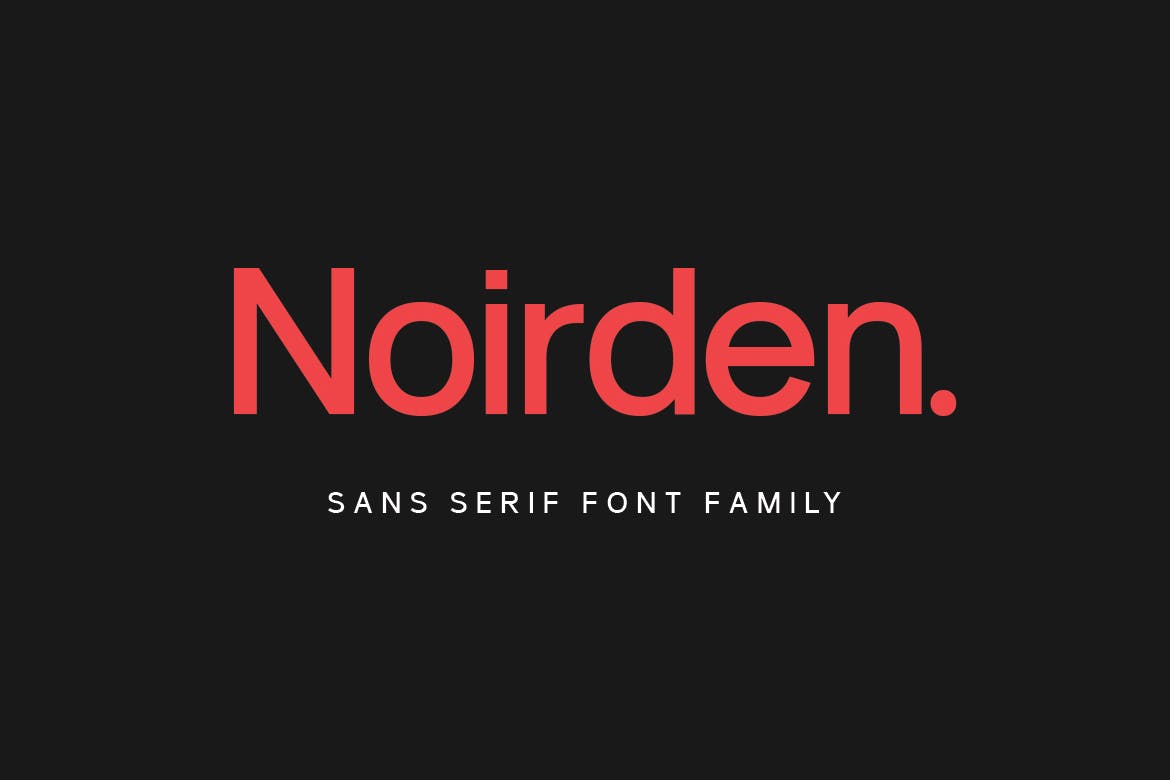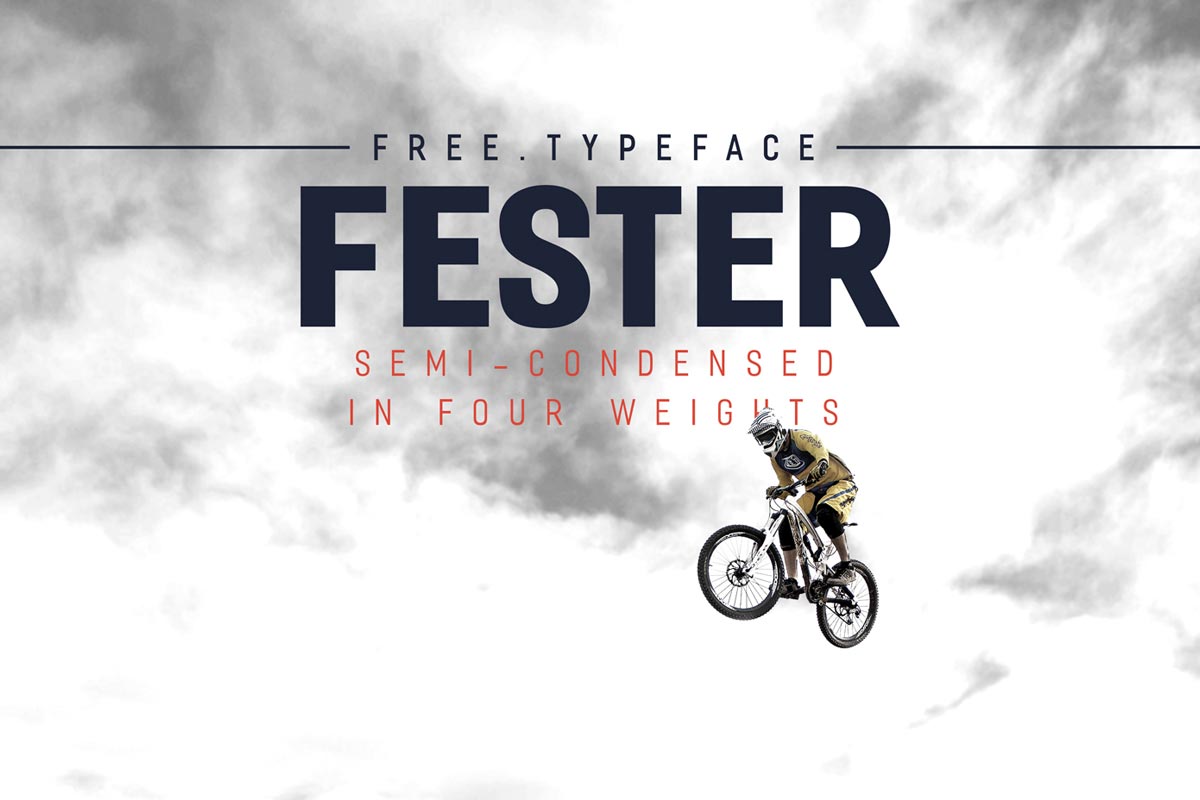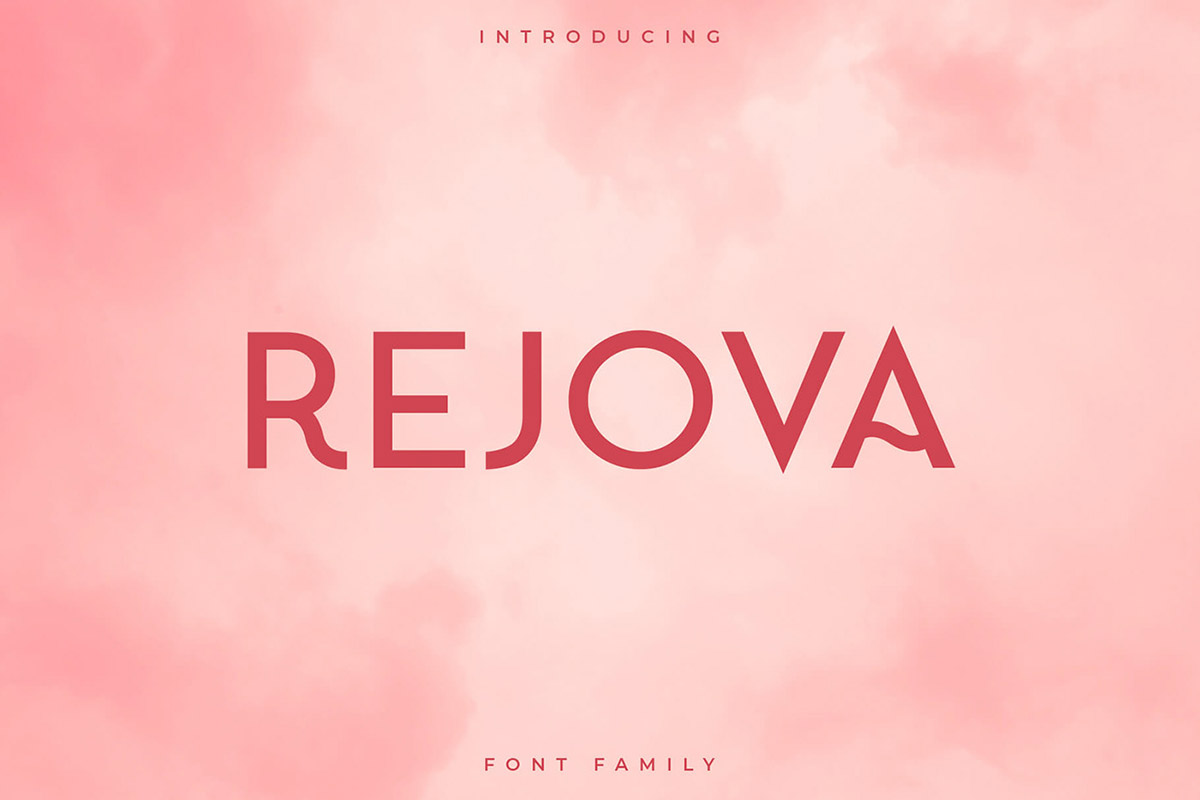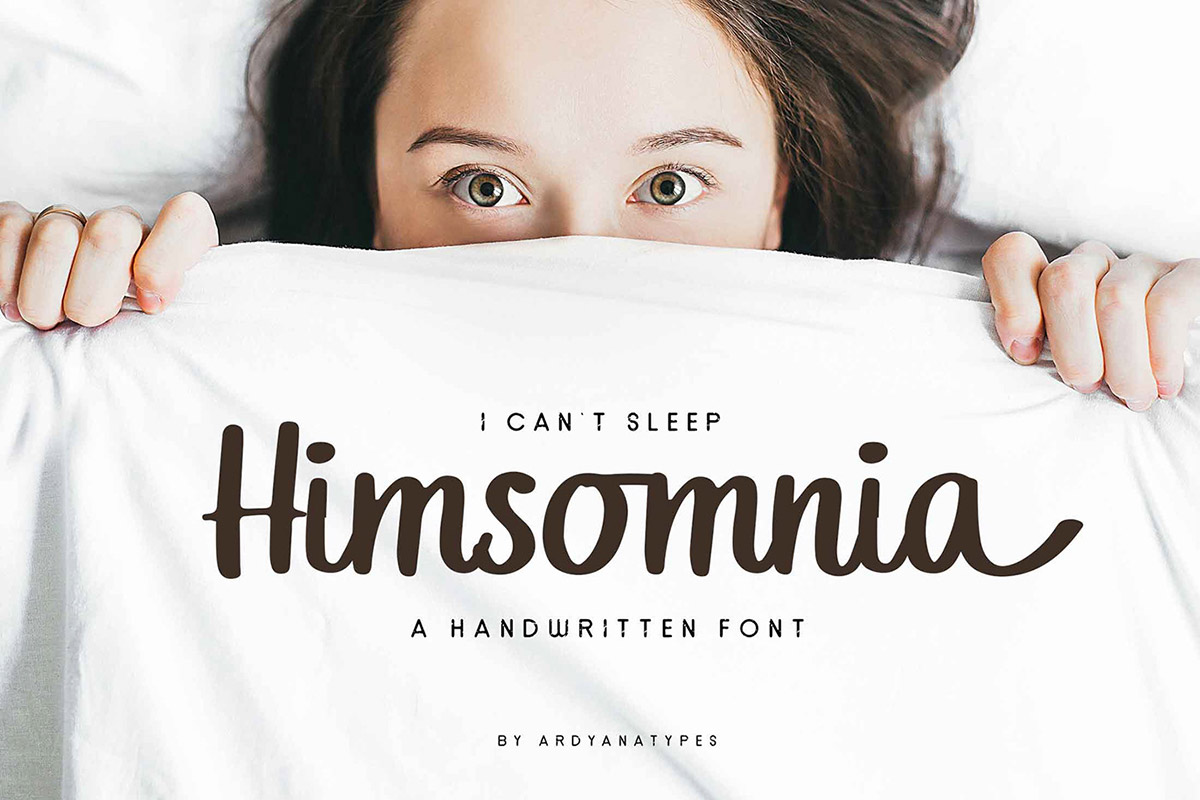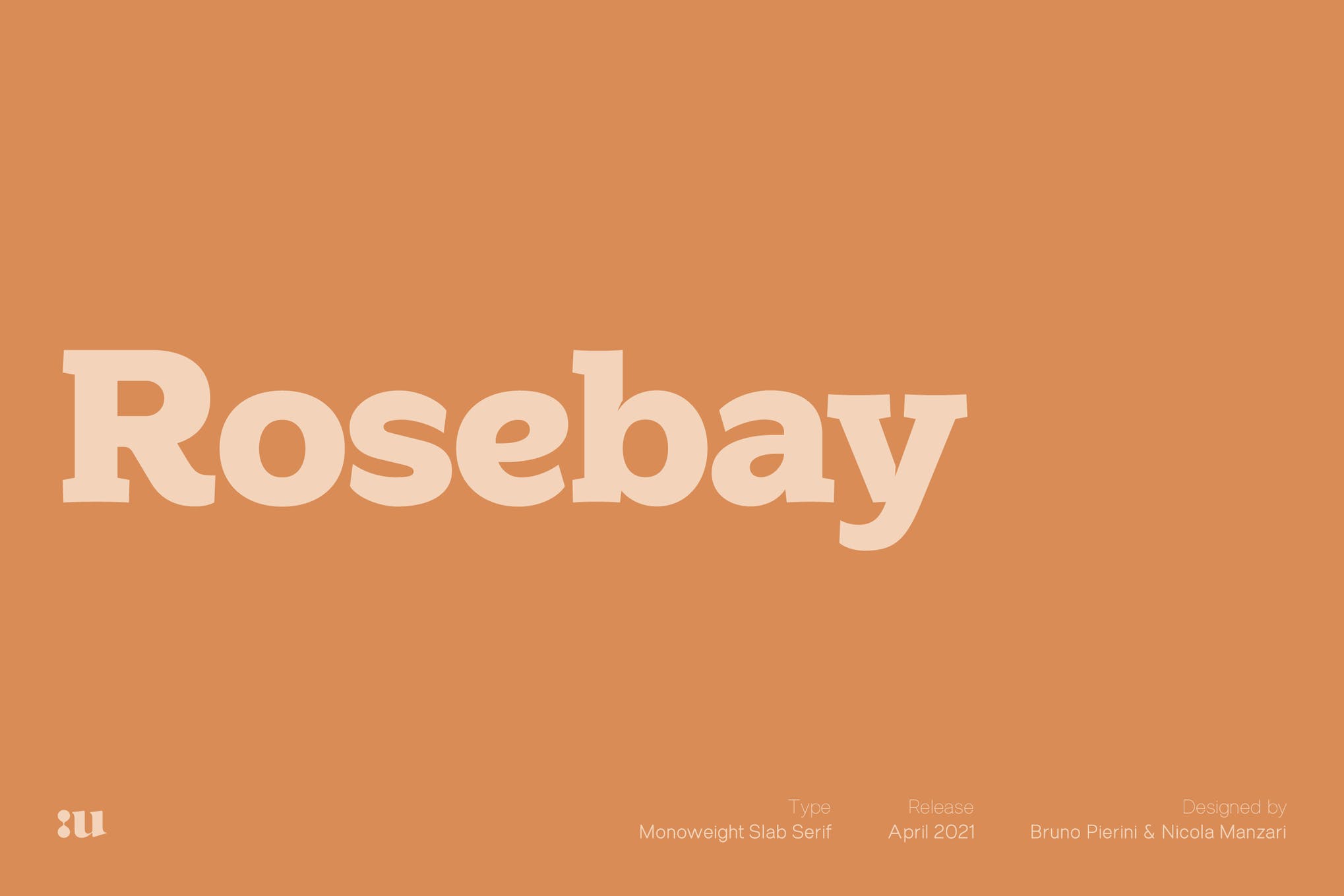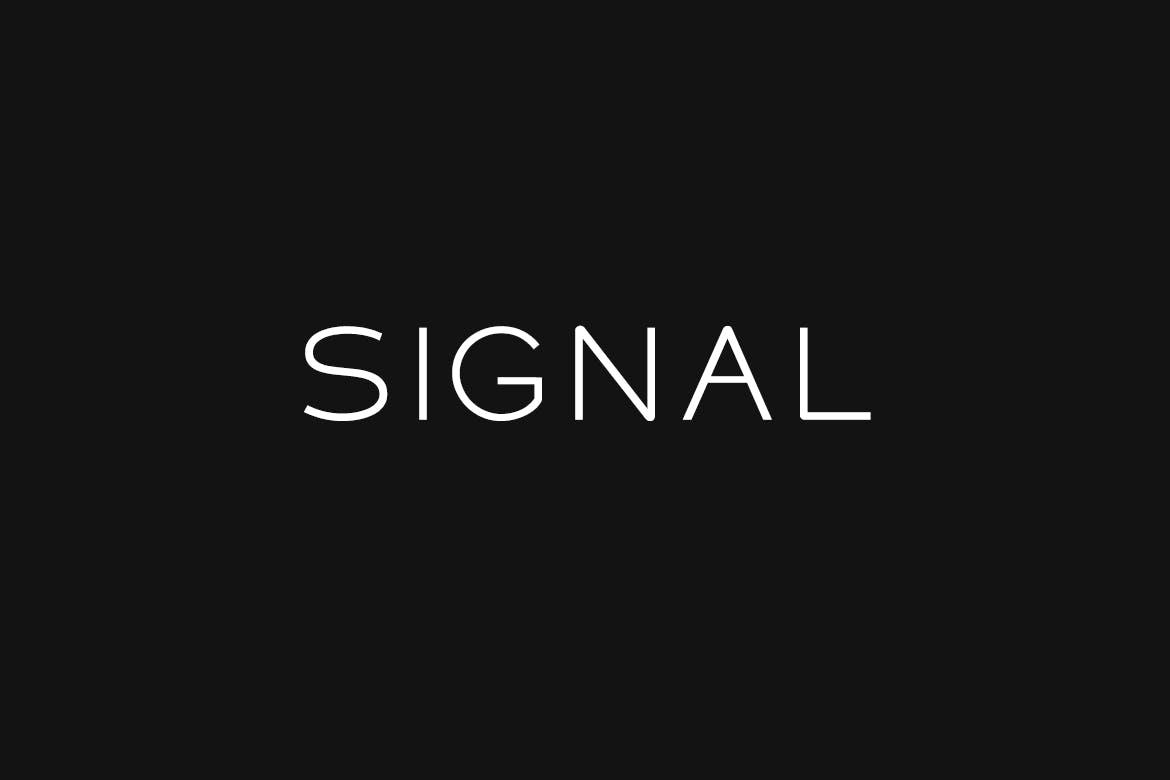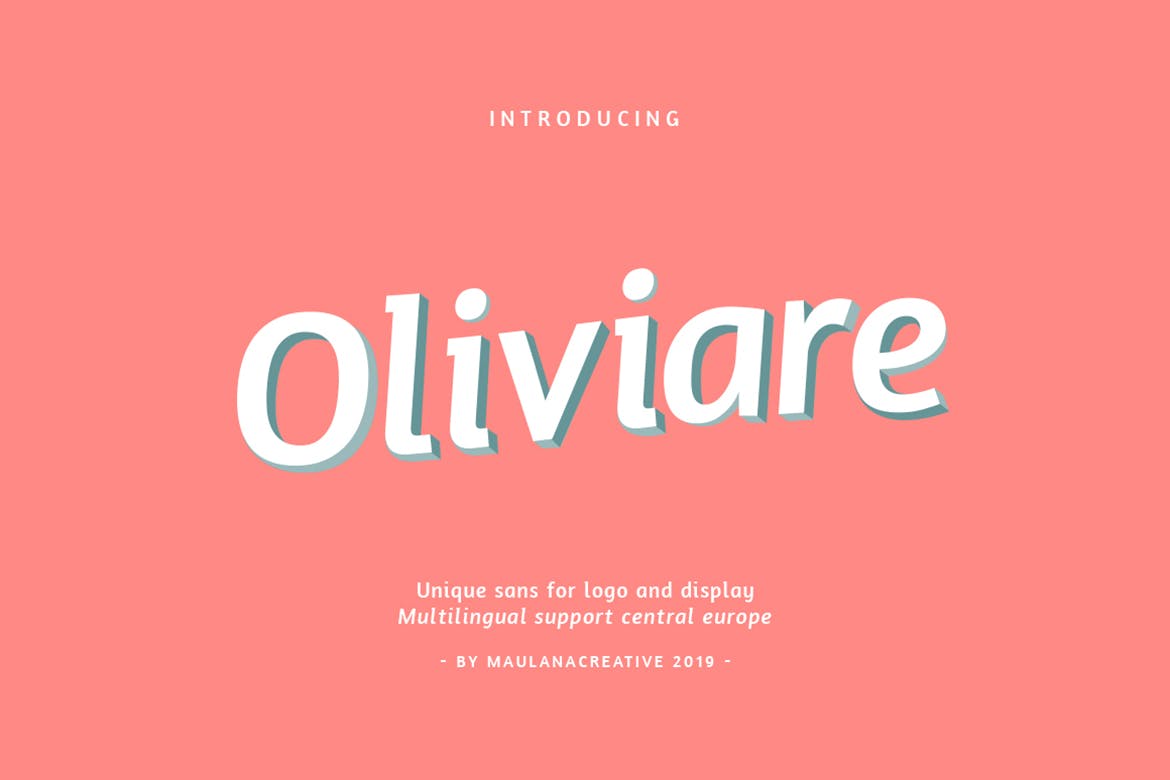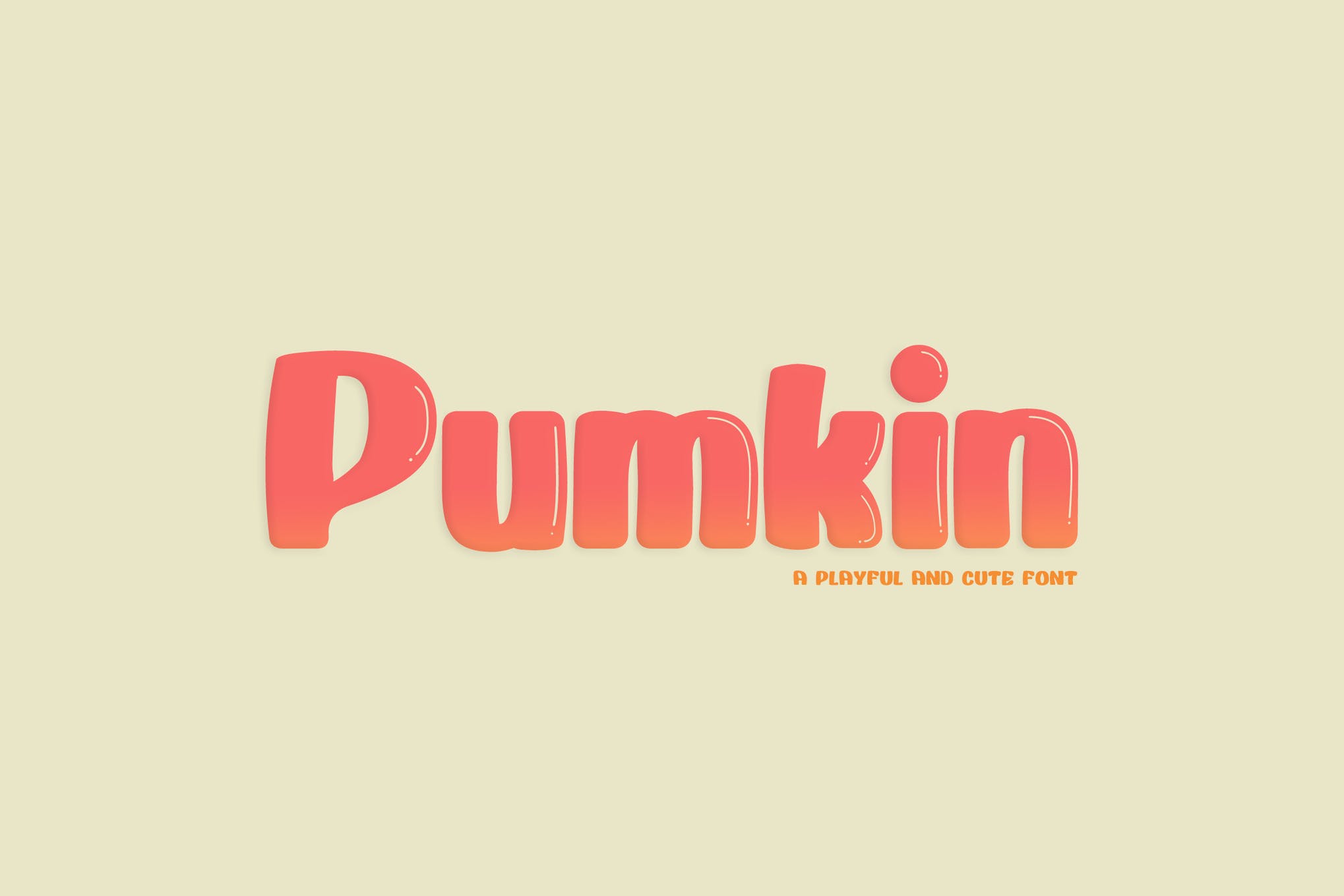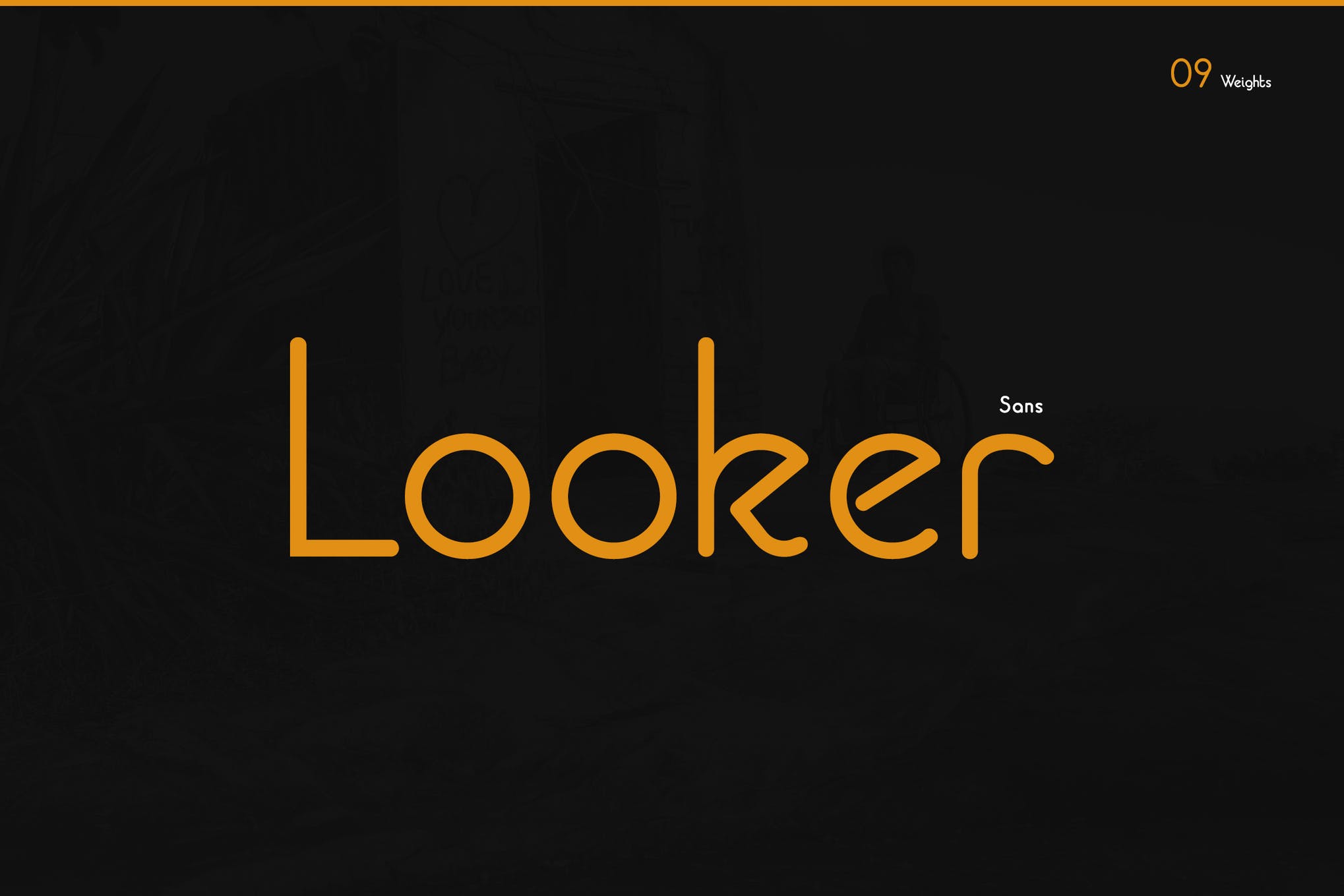
20+ Best Fonts for Captions (Movie + Video Closed Captions Fonts) 2022
In the professional film industry, there are many reasons why you might need to use subtitles and captions in your videos. Whether you’re shooting documentaries that require information to be conveyed on screen, or if you’re simply trying to supply translation captions for interviews, text on screen can often play an important role in your production.
The real trick for working with these text-on-screen situations for subtitles and captions generally comes down to these three factors: clarity, comprehension, and ease on the eye.
While there are always some quick tricks like adding outlines or drop-shadow to make text pop, your choice of font is perhaps the most important decision in the process. Trial and error and an eye test might be the best way to know for sure, but to help you get started. Here are some of the best fonts for captions for your videos.
Vandal Display – Closed Captions Font
Vandal is a rough sans serif font. Vandal Sans is perfectly suited to branding, logos, magazines, films, websites, headlines, titles, captions, games, apps, posters, t-shirts, and more.
Boilover – Closed Captions Font
Boilover is a modern, clean and precise font family with 8 weights & Italic. It is perfectly suited for branding, logos, magazines, advertisements, websites, headlines, titles, captions, UIs, games, apps, films, apparel, and more.
Rosebay – Movie Captions Font
This seventies-inspired slab has been designed with a sleek structure that supports its extreme weight. The unedited interplay between sharp and soft forms, that characterize the harmonic geometry, delivers high readability and originality for captions.
Signal – Movie Captions Font
Signal is a new-age typeface for captions, headlines, big text, branding, logotypes & display usage. This all-caps typeface is perfect for creating outstanding promotional content, and marketing graphics that can really grab the attention of your audience.
Linnett – Closed Captions Font
Linnett is a modern and minimalist rounded sans serif typeface. It comes with 5 weights: Regular, Thin, Light, Round, and Bold versions, which contains complete basic glyphs with multilingual support.
Honeybae – Closed Captions Font
Check out Honeybae, a fun display Font. This is perfect for the purposes of designing templates, brochures, video captions, advertising branding, logos, and more.
Oliviare – Movie Captions Font
Oliviare typeface comes in a Normal and Italic version. It is perfectly suited to branding, logos, magazine, website, headlines, titles, captions, games, apps, posters, t-shirts and more.
Pumkin – Closed Captions Font
Pumkin is a Playful modern display font family. Pumkin carries a cute, unique, and social character line with an adorable finish, giving a new impression.
Looker – Closed Captions Font
Looker is a Minimal, Vintage, clean, and beautiful font family with “9” Font weights. It is perfectly crafted for logos, magazines, advertisements, websites, headlines, titles, captions, UIs, games, apps, films, apparel, and more.
Noirden – Closed Captions Font
Noirden is a sans serif font that is perfectly suited to branding, logos, magazines, films, websites, headlines, titles, captions, games, apps, posters, t-shirts and more.
Brotherhood – Closed Captions Font
This is “Brotherhood”, a handwritten font that you can use for personal brands, captions, and even paragraph writing. Expand your friendship and make your business more closely to your customers as a “Brotherhood” with this font.
Alma Sans – Movie Captions Font
Alma Sans is a low contrast sans-serif based on simple geographic shapes. It has a friendly demeanor with rounded edges and curved ears & spurs.
Cassius – Closed Captions Font
Cassius Sans Font is a bold sans serif. CASSIUS Sans Font is perfectly suited to branding, logos, magazines, films, websites, headlines, titles, captions, games, apps, posters, t-shirts, and more.
Fester – Free Closed Captions Font
Fester is an uppercase, semi-condensed, sans-serif typeface. Its gentle, clean appearance makes it a suitable typeface for headlines, posters, titles, and captions. It consists of 256 character glyphs & over 3302 kerning pairs. Free for both personal and commercial use. Hope you find it useful!
Rejova – Free Closed Captions Font
Rejova is an elegant and adaptable font that is suitable for a wide variety of designs. Due to its neat and simple style, it has the potential to become your favorite go-to font, no matter the occasion! It contains uppercase, numbers, and symbols only.
Himsomnia – Free Closed Captions Font
Himsomnia is a simple and very casual font, making it very easy to read and apply to all design projects. It contains uppercase, number, punctuation, symbols, ligatures and supports multilingual.
Captions help viewers understand the video even without any sound. The right caption font ensures that viewers don’t face trouble understanding the text. That’s why adding captions with the right font is the key to creating a rich video experience.